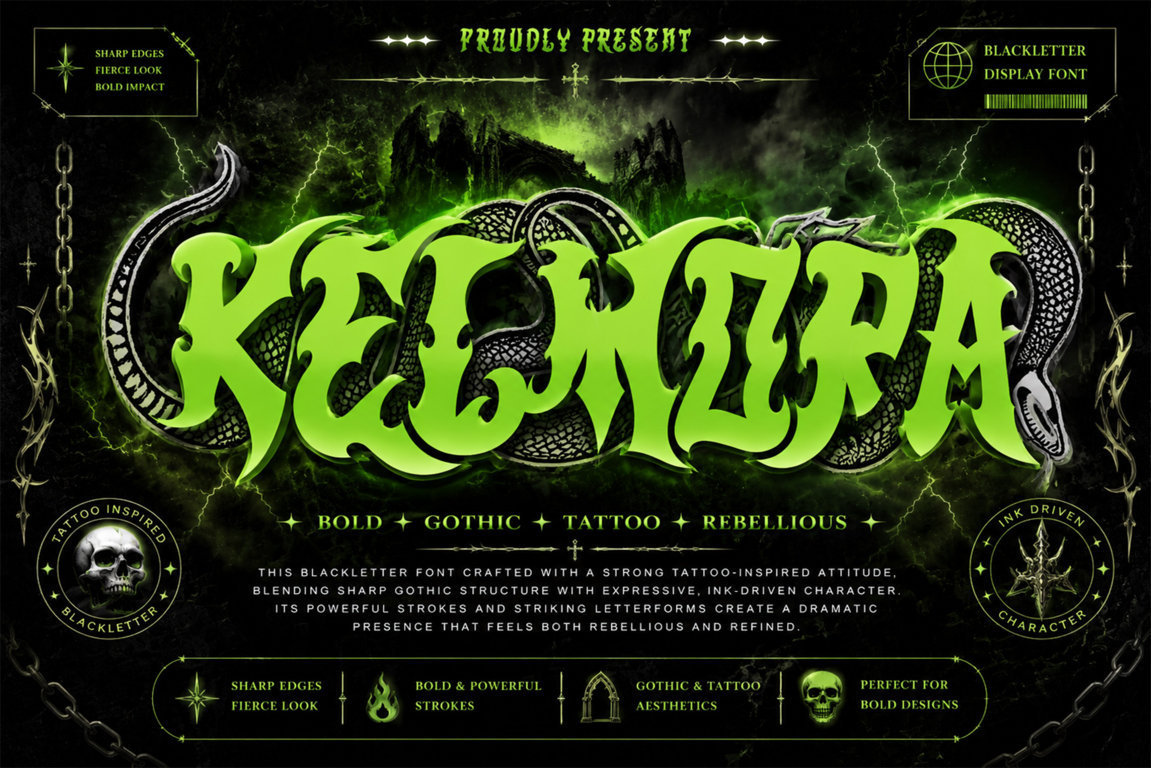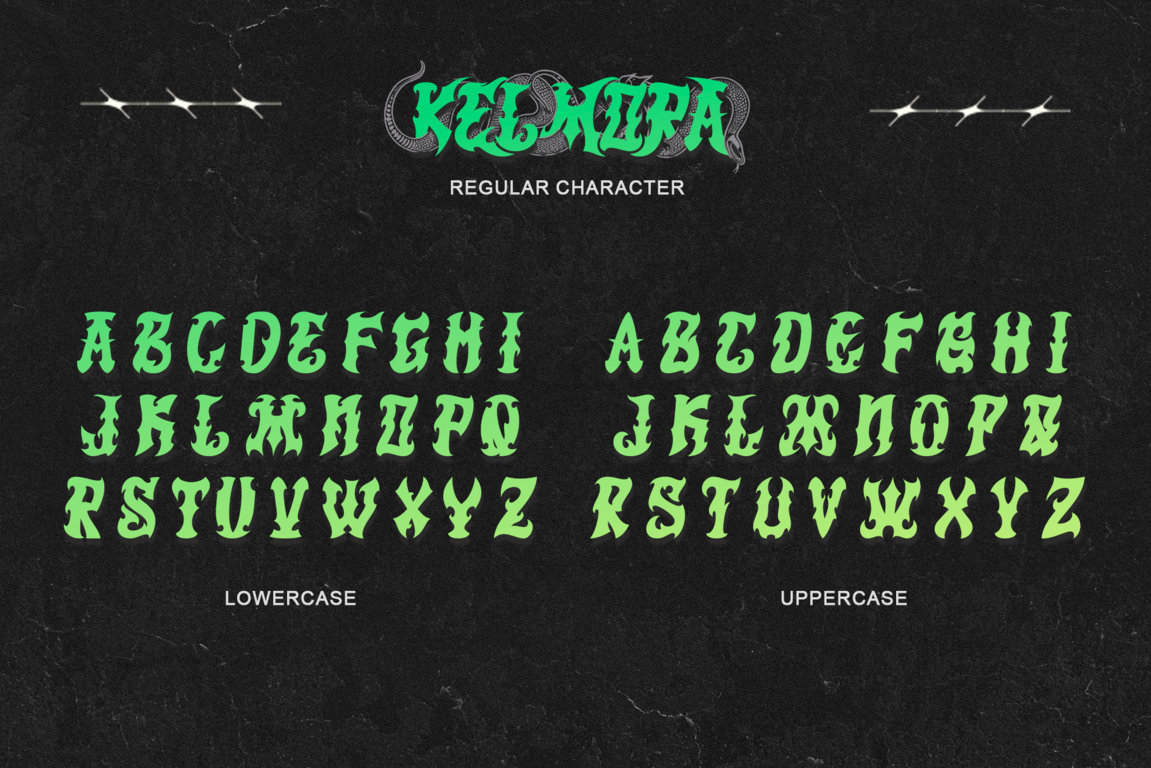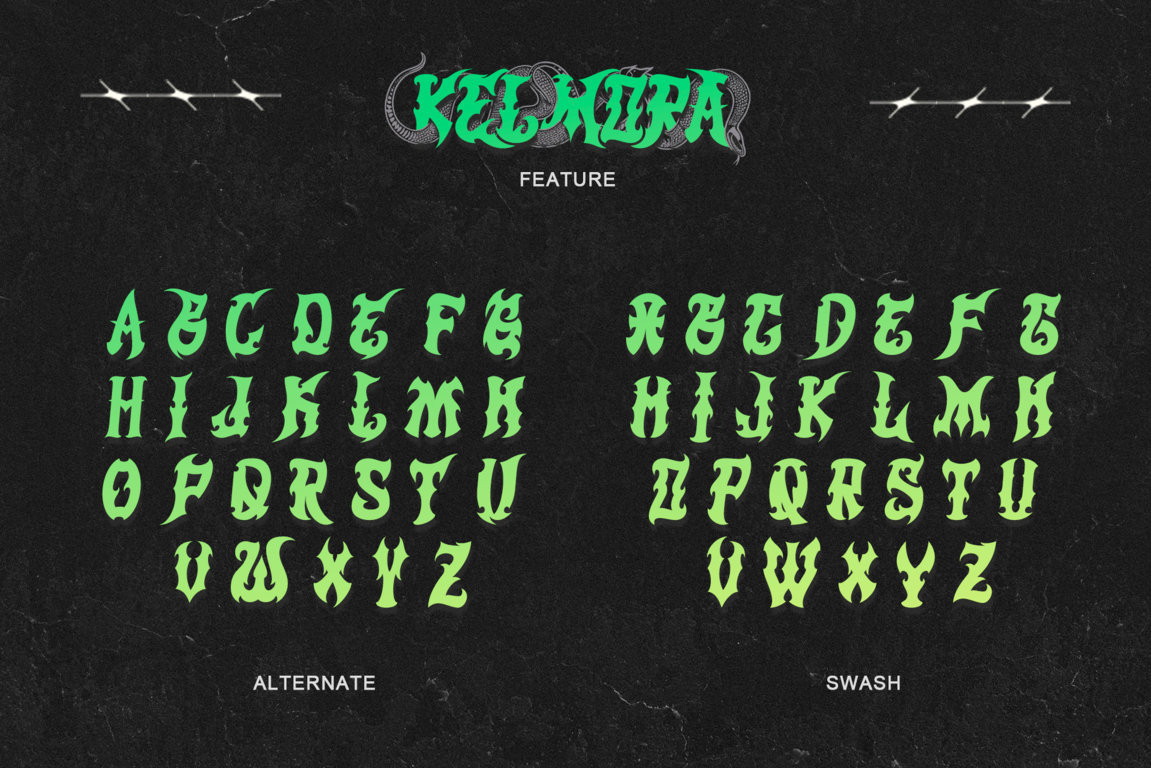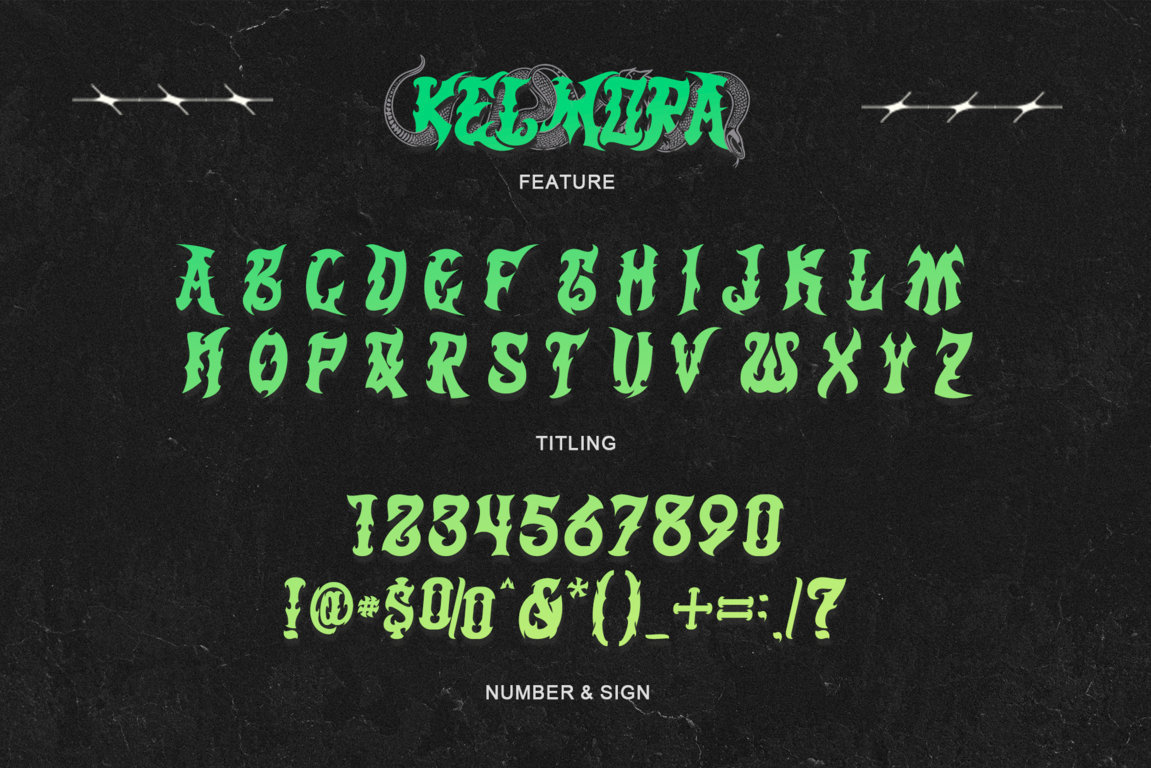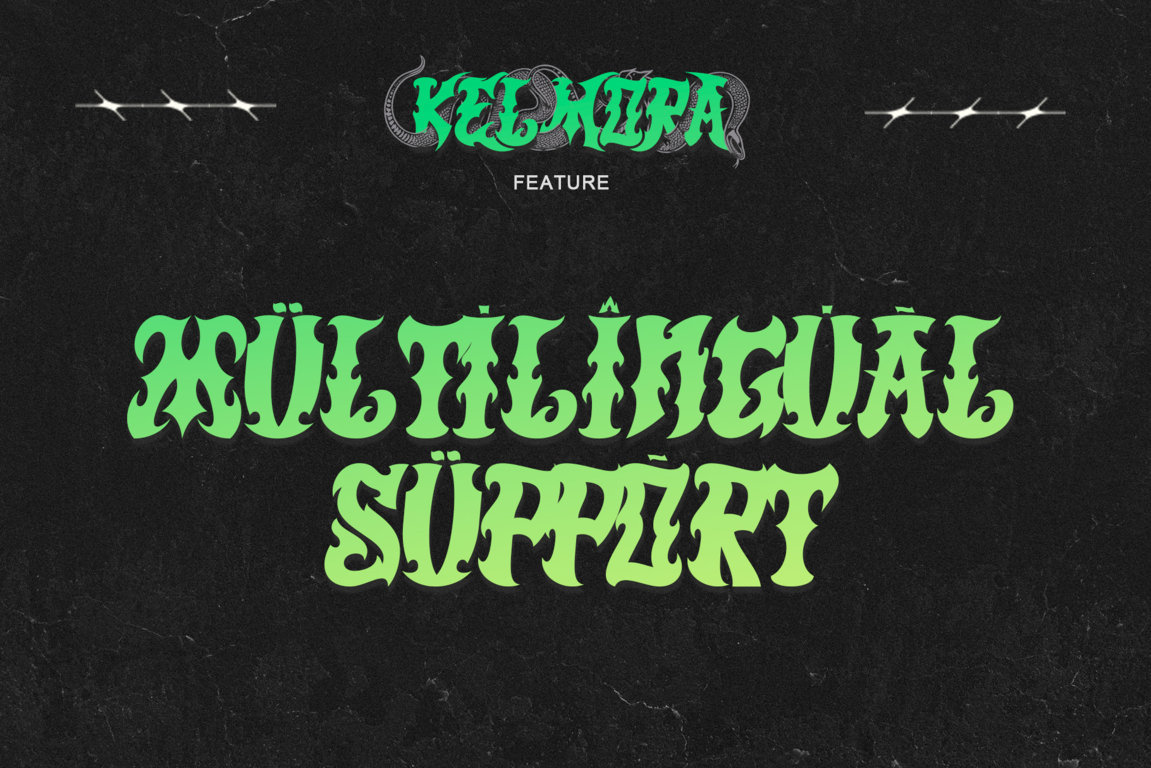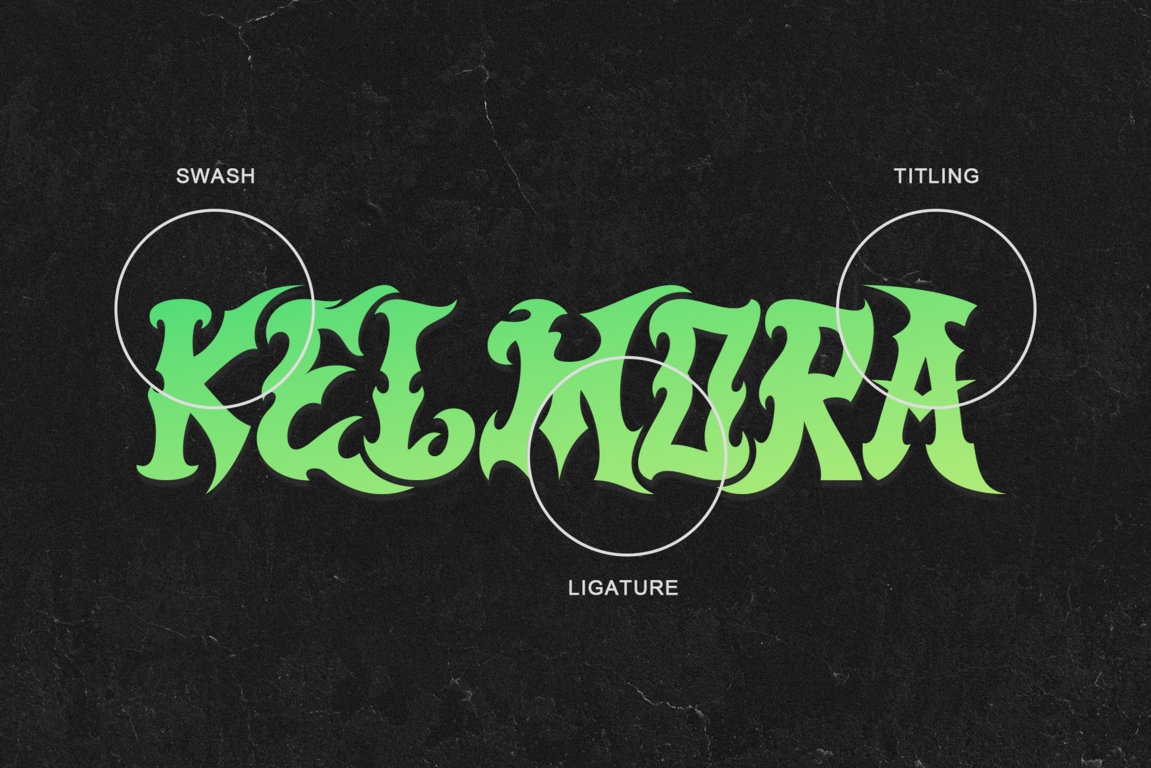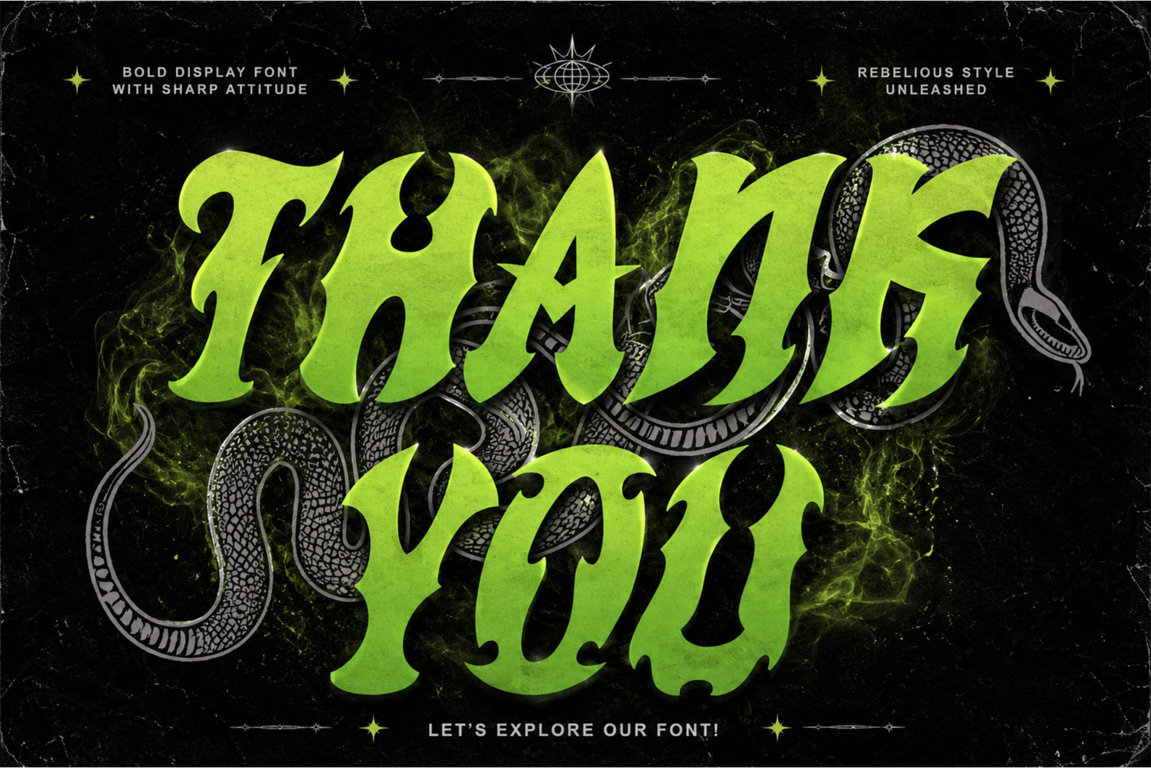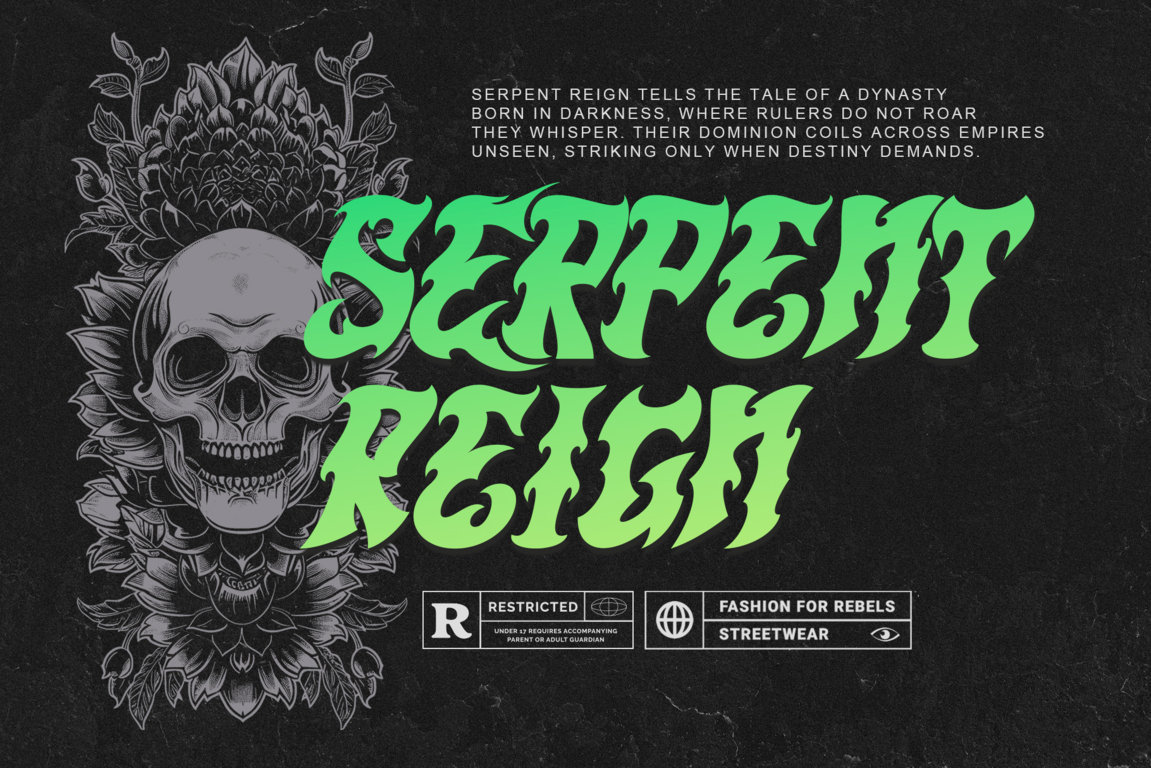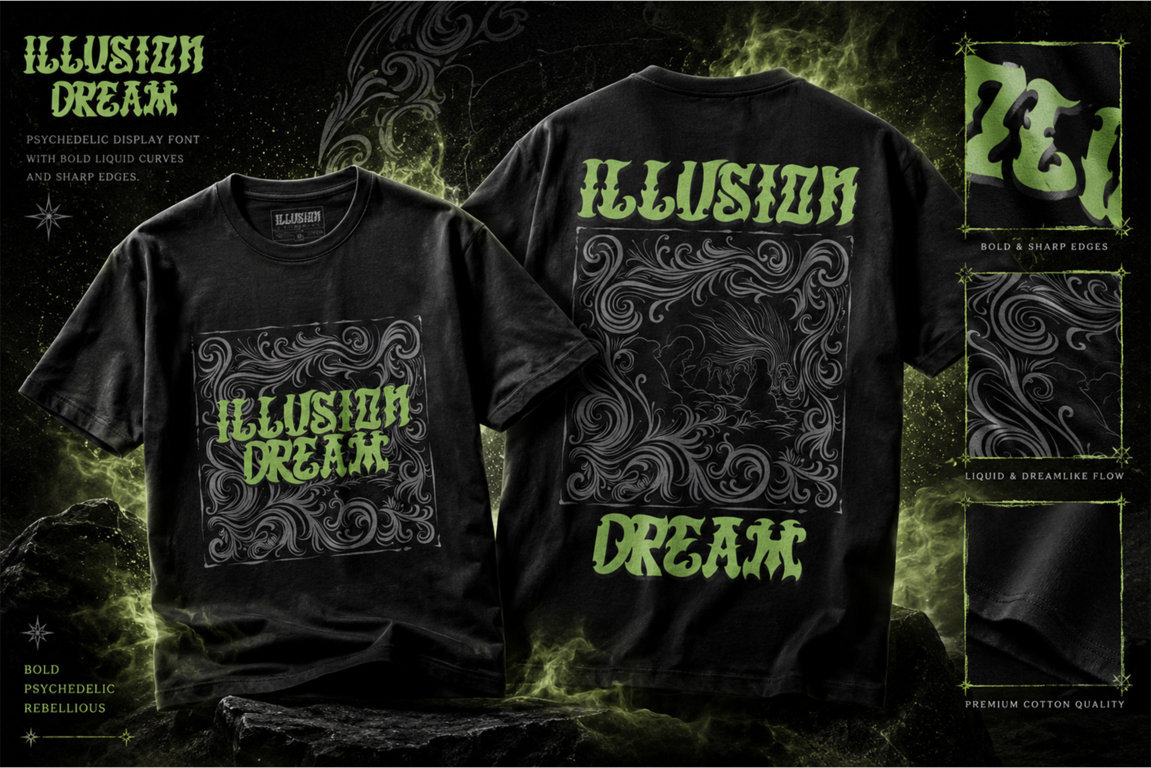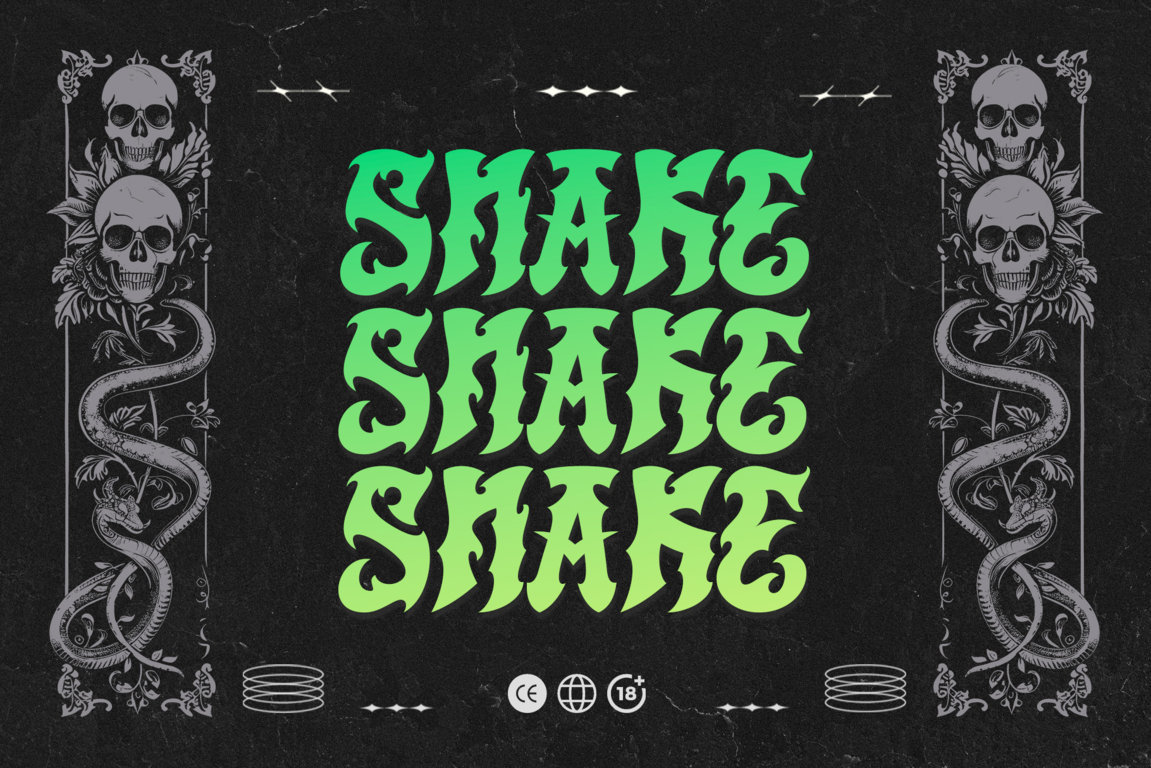
Kelmora – Medieval Tattoo Blackletter Font
Kelmora is a bold psychedelic blackletter display font crafted with a strong gothic structure and expressive organic curves, delivering a distinctive visual identity that feels powerful, artistic, and contemporary. Inspired by underground typography, vintage psychedelic aesthetics, and modern experimental design, Kelmora offers dramatic letterforms that instantly capture attention while maintaining strong readability and visual balance. Perfect for album covers, poster design, product packaging, branding, beverage labels, creative advertising, gaming visuals, editorial layouts, and premium display projects that require a unique and memorable typographic presence.
Features:
• Support multilingual; ä ö ü Ä Ö Ü ß ¿ ¡
• Numerals & Punctuation
• uppercase letters
• Alternate, swash, titling, & Ligature
Support for 65 languages:
Afrikaans, Albanian, Asu, Basque, Bemba, Bena, Breton, Catalan, Chiga, Cornish, Danish, Dutch, English, Faroese, Filipino, French, Friulian, Galician, German, Gusii, Icelandic, Indonesian, Irish, Italian, Kabuverdianu, Kalenjin, Kinyarwanda, Luo, Luxembourgish, Luyia, Machame, Makhuwa-Meetto, Makonde, Malagasy, Manx, Morisyen, North Ndebele, Norwegian Bokmål, Norwegian Nynorsk, Nyankole, Oromo, Portuguese, Quechua, Romansh, Rombo, Rundi, Rwa, Samburu, Sango, Sangu, Scottish Gaelic, Sena, Shambala, Shona, Soga, Somali, Spanish, Swahili, Swedish, Swiss German, Taita, Teso, Uzbek (Latin), Vunjo, Zulu.